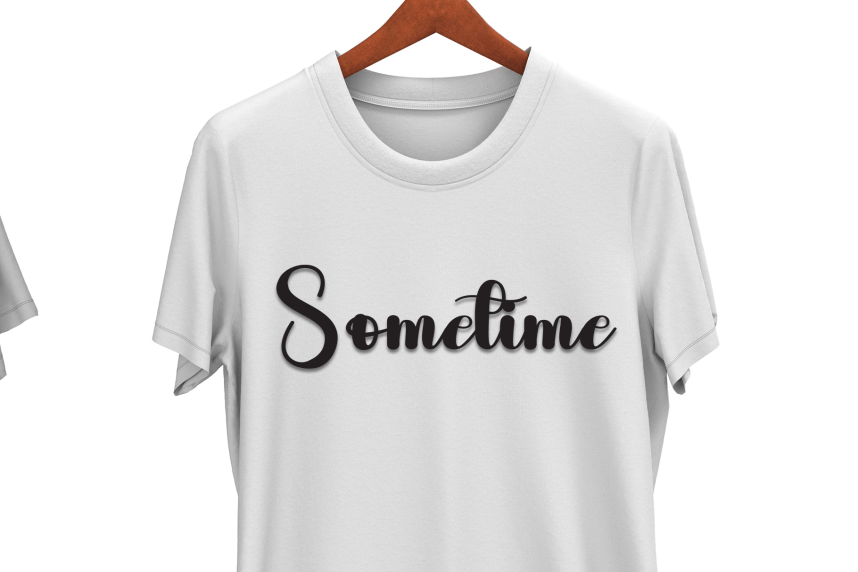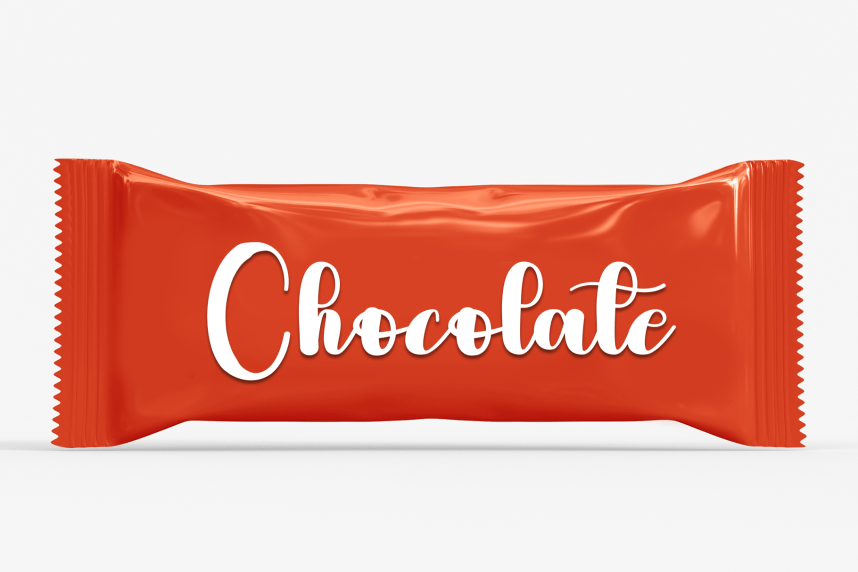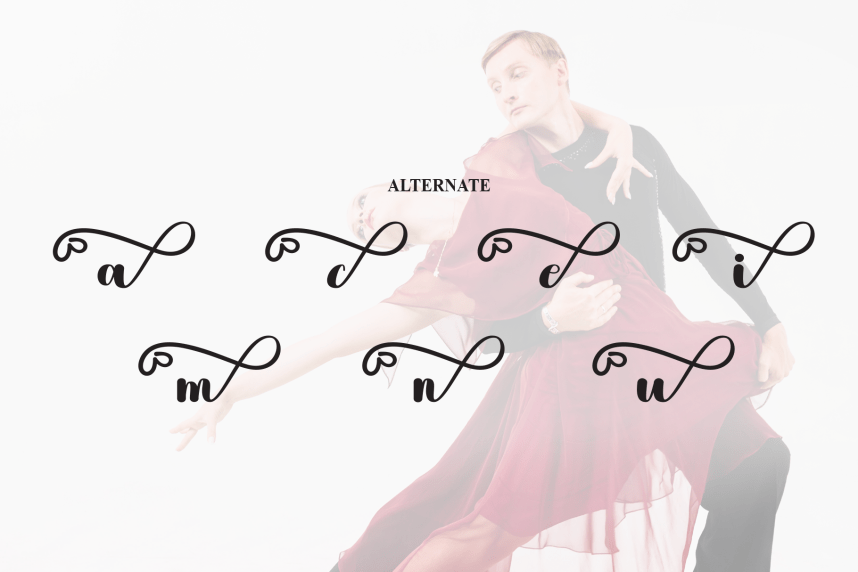
Dance – Creative Handmade Font
Dance – Creative Handmade Font is a sweet and friendly handwritten display font. Cute and fun, this font is ideal for writing wedding invitations, cards, or any other design that might need a playful touch!